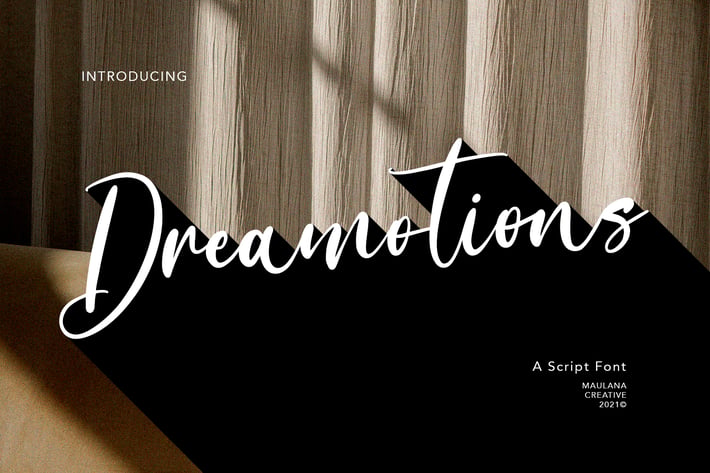
Dreamotions Handwritten Script Font
Dreamotions is a handwritten script font With high contrast stroke and fun character. It has Opentype features of ligatures character, To give you an extra creative work. Dreamotions handwritten script font support multilingual more than 100+ language. This font is good for logo design, Social media, Movie Titles, Books Titles, a short text even a long text letter and good for your secondary text font with sans or serif. Make a stunning work with Dreamotions handwritten script font.